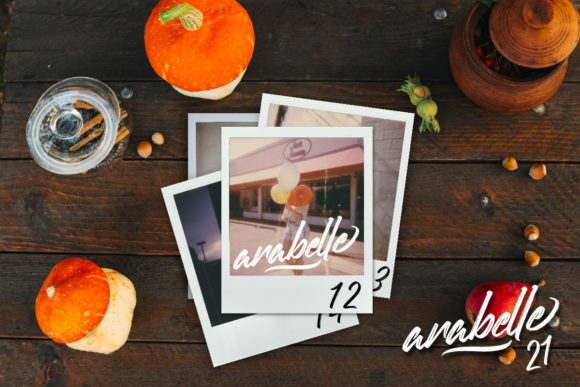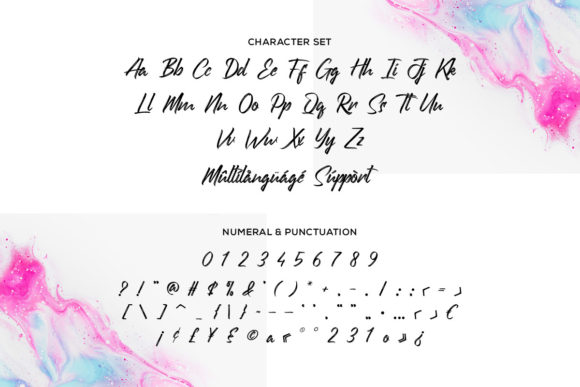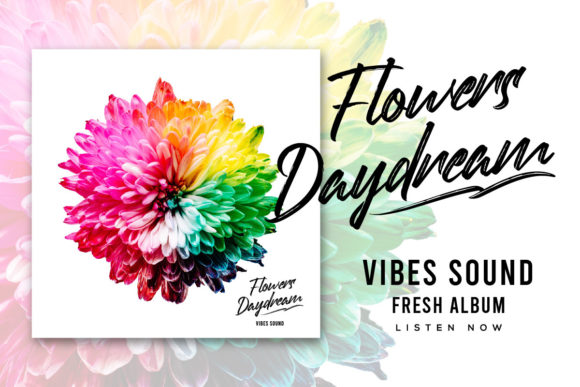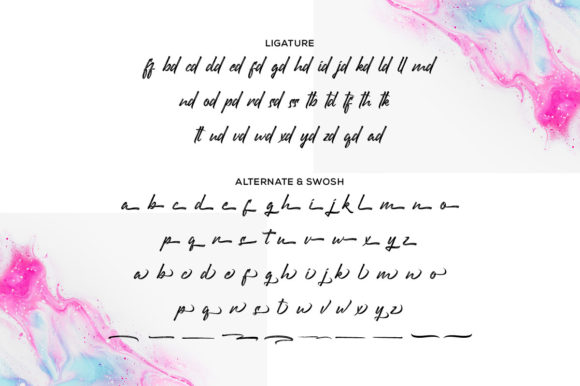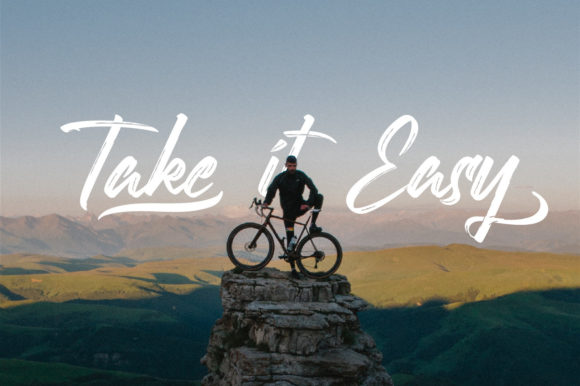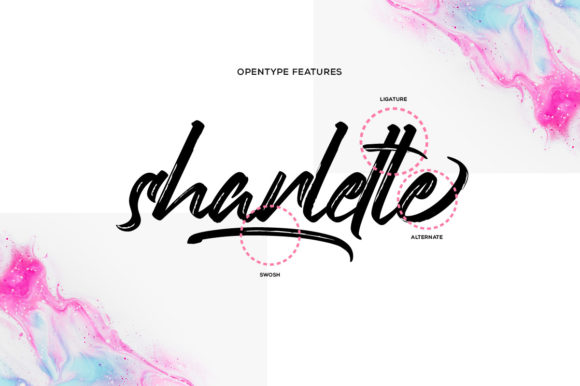
Introducing Handrush Font: The Ultimate Cursive Brushed Script for Designers and Crafters
Are you a designer or crafter looking for a unique and elegant font to elevate your creative projects? Look no further than Handrush Font, a lovely and cursive brushed script font that’s perfect for fashion branding, editorial designs, and more. In this article, we’ll dive into the features and benefits of Handrush Font, and explore how it can add a touch of sophistication to your work.
What is Handrush Font?
Handrush Font is a beautifully crafted cursive script font that’s designed to add a personal touch to your designs. With its smooth curves and elegant swashes, this font is perfect for creating stunning fashion branding, editorial designs, and social media graphics. Whether you’re a professional designer or a crafty DIY enthusiast, Handrush Font is sure to inspire your creativity.
Key Features of Handrush Font
- PUA Encoded: Handrush Font is PUA (Private Use Area) encoded, which means you can access all of the glyphs and swashes with ease. This makes it simple to customize your text and add unique flourishes to your designs.
- Smooth Curves: The font features smooth, flowing curves that give it a organic and hand-crafted feel. This makes it perfect for creating elegant and sophisticated designs.
- Cursive Brushed Script: Handrush Font is a cursive brushed script font, which means it’s designed to mimic the look of handwriting. This gives your designs a personal and human touch that’s sure to stand out.
Use Cases for Handrush Font
Handrush Font is a versatile font that can be used in a variety of creative projects. Here are some ideas to get you started:
- Fashion Branding: Use Handrush Font to create stunning fashion branding, including logos, business cards, and packaging.
- Editorial Designs: Add a touch of elegance to your editorial designs, including magazines, newspapers, and blogs.
- Social Media Graphics: Use Handrush Font to create eye-catching social media graphics, including Instagram posts, Facebook covers, and Twitter headers.
- DIY Crafts: Handrush Font is perfect for crafty DIY enthusiasts, including scrapbooking, card making, and journaling.
Benefits of Using Handrush Font
So why choose Handrush Font for your creative projects? Here are just a few benefits:
- Unique and Elegant: Handrush Font is a unique and elegant font that’s sure to add a touch of sophistication to your designs.
- Easy to Use: With its PUA encoding, Handrush Font is easy to use and customize, even for beginners.
- Versatile: Handrush Font can be used in a variety of creative projects, from fashion branding to DIY crafts.
Tips for Using Handrush Font
Here are a few tips for getting the most out of Handrush Font:
- Experiment with Swashes: Don’t be afraid to experiment with the font’s swashes and glyphs to add unique flourishes to your designs.
- Pair with Other Fonts: Try pairing Handrush Font with other fonts to create interesting and dynamic typography.
- Use for Headlines and Titles: Handrush Font is perfect for headlines and titles, where its elegant curves and swashes can really shine.
In conclusion, Handrush Font is a beautiful and elegant cursive brushed script font that’s perfect for designers and crafters. With its smooth curves, PUA encoding, and versatility, it’s sure to add a touch of sophistication to your creative projects. So why not give it a try and see what amazing designs you can create?